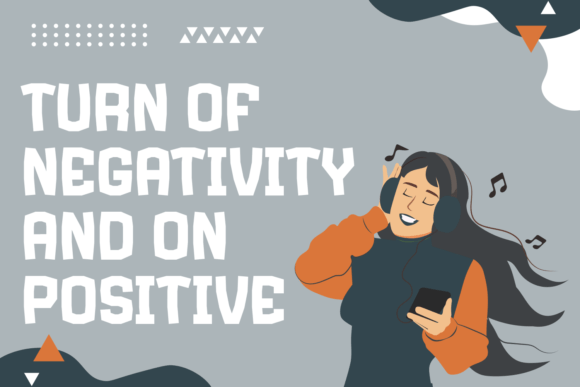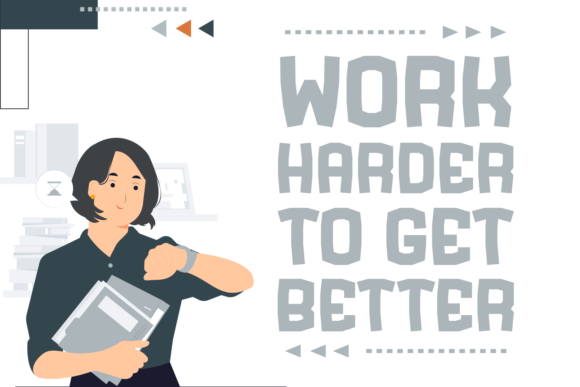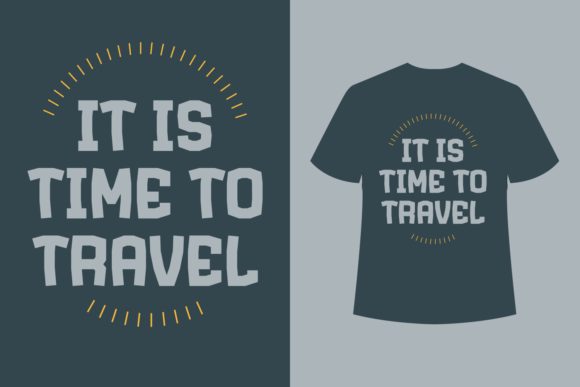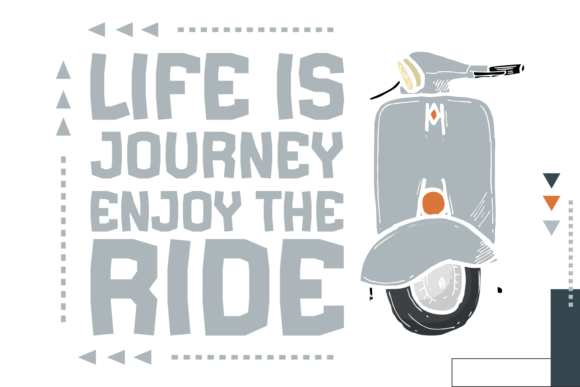
Introduction to Nganti Tresno Font
Nganti Tresno is a display font and it features a modern and minimalist design, making it versatile for a wide range of design applications.
The fontโs letterforms are simple yet impactful, making it well-suited for bold headlines, logos, and other display purposes where legibility and visual impact are key The fontโs versatility makes it suitable for a wide range of design projects, including branding, editorial layouts, web design, packaging, and signage.
Key Features of Nganti Tresno Font
Why Choose Nganti Tresno Font?
Nganti Tresno Font offers exceptional quality and versatility, making it a valuable addition to your design toolkit. Whether you’re creating for personal projects or commercial use, Nganti Tresno Font delivers professional results.